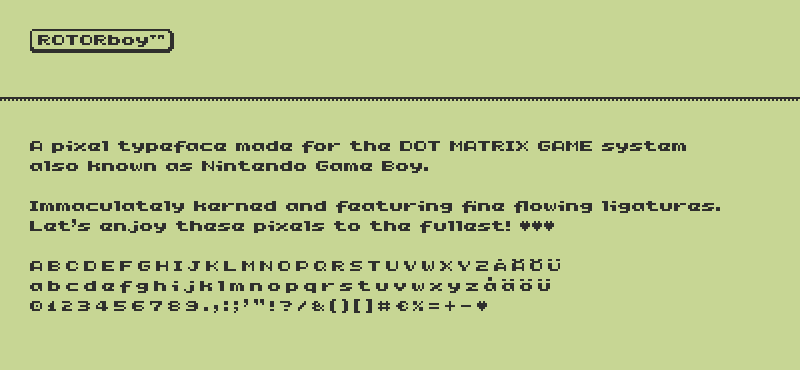
Font name: | RotorBoy |
Author: | David Lindecrantz |
Note by David Lindecrantz | |
Another vintage pixel font release straight from the vaults of ROTORtype! This one was originally made for the Game Boy, but its charm and immaculate kerning could certainly make it useful elsewhere! The typeface is designed to be used at 8 points or multiples thereof. For proper spacing, set kerning to "Metrics". Letter-spacing should be set to 0 or multiples of 125. And last but not least; no anti-aliasing! More ROTORtype: http://lindecrantz.com/category/rotortype/ |